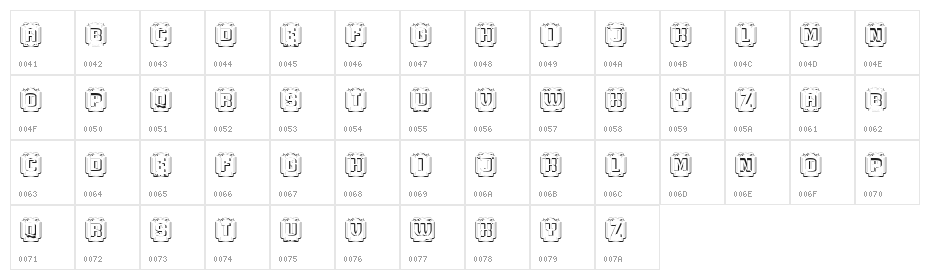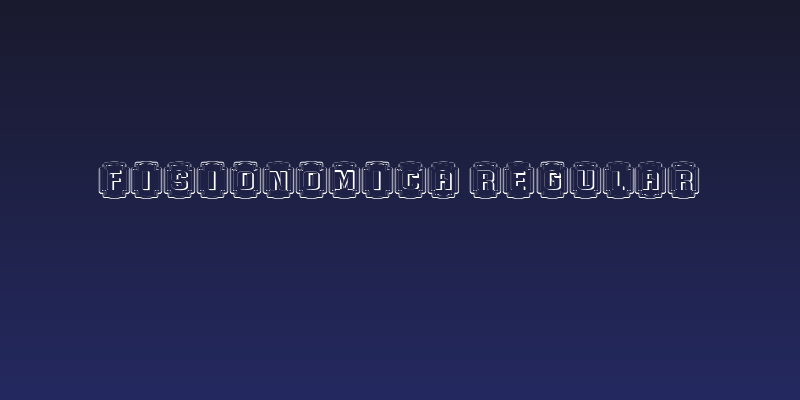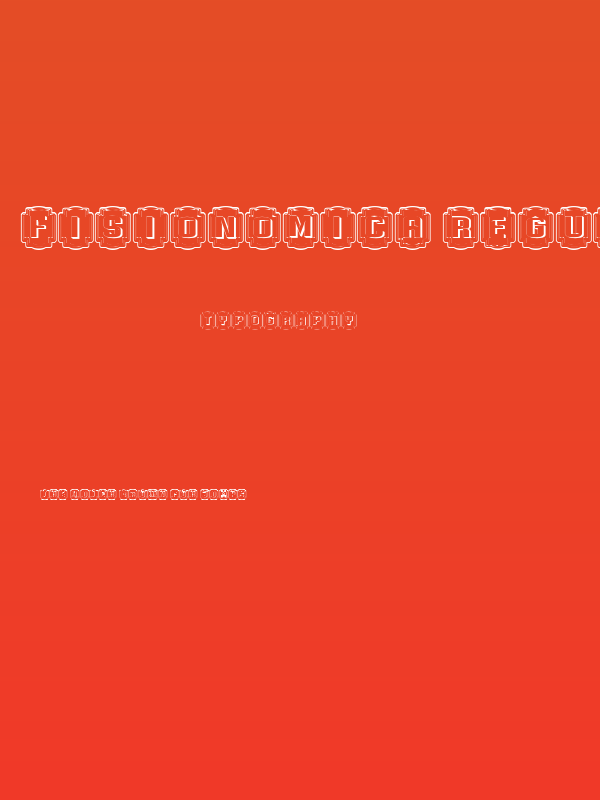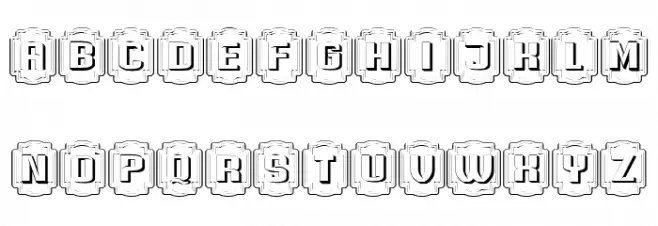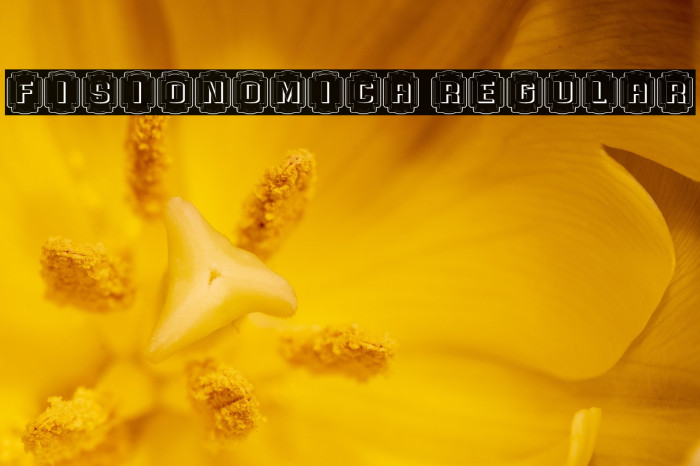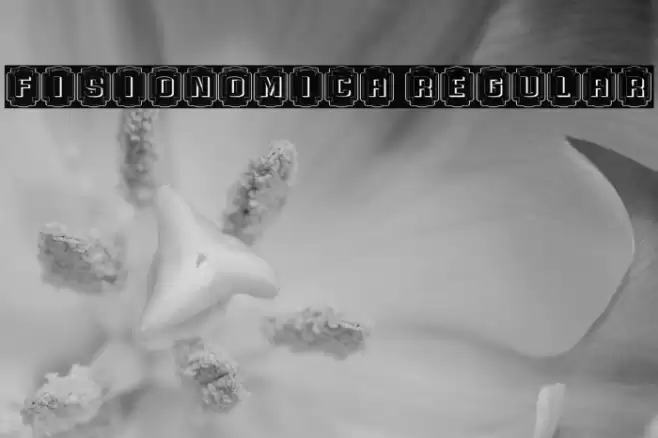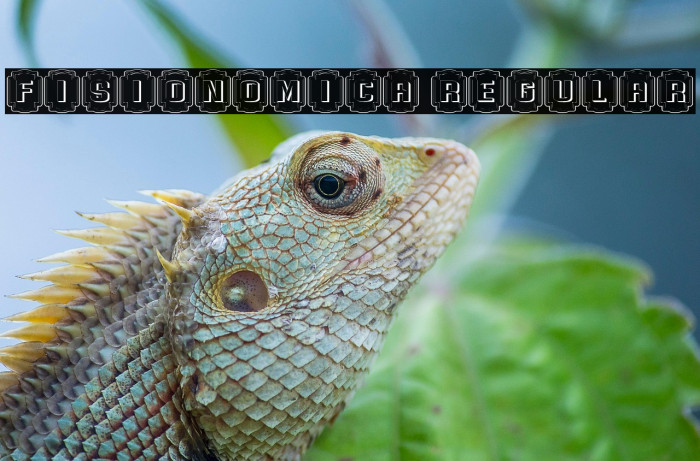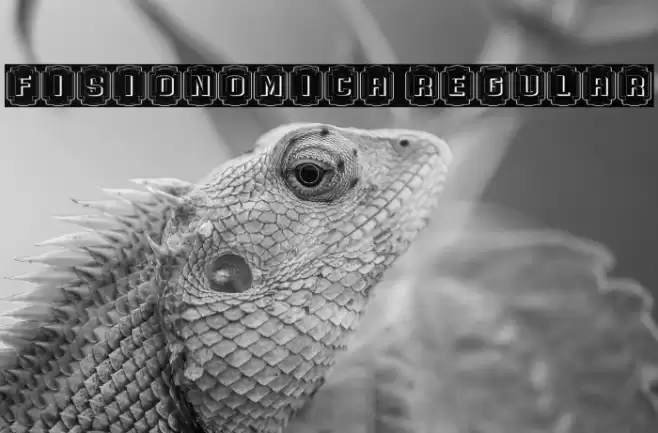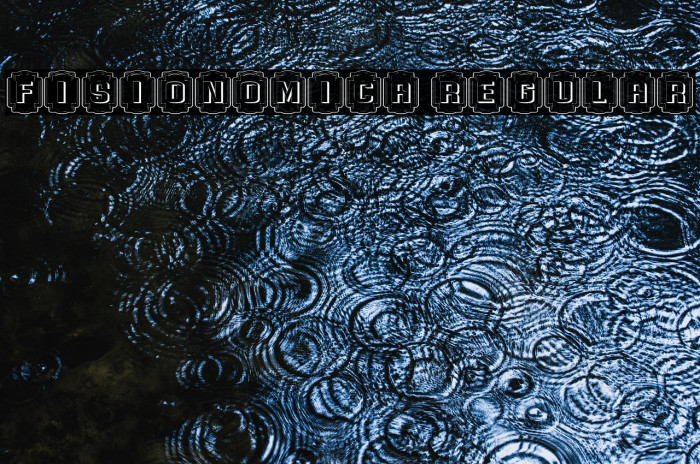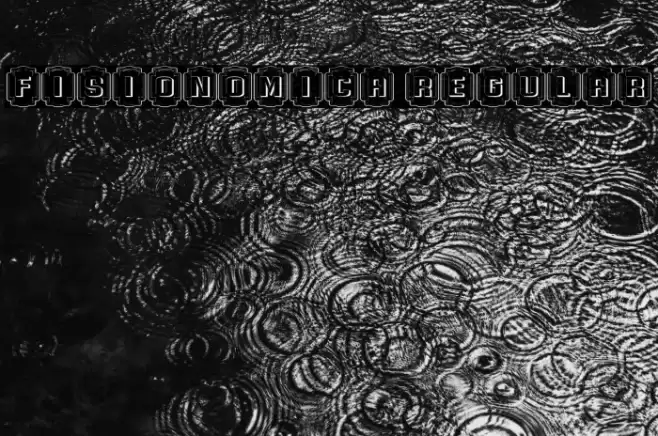
Fisionomica Regular Font
Fisionomica Regular Description
This font features a bold, decorative style with a unique outline that gives each character a three-dimensional appearance. The letters are enclosed in a rectangular frame with rounded corners, adding a distinct, playful touch. The design is highly detailed, with intricate line work that enhances its visual appeal. The uppercase and lowercase letters maintain consistency in style, ensuring a cohesive look. The numbers and special characters follow the same design principles, making the font versatile for various uses. Its boldness and decorative elements make it stand out, ideal for projects that require a strong visual impact.
| Proposed Projects | Ideal for posters, logos, headlines, and any project requiring a strong visual impact. |